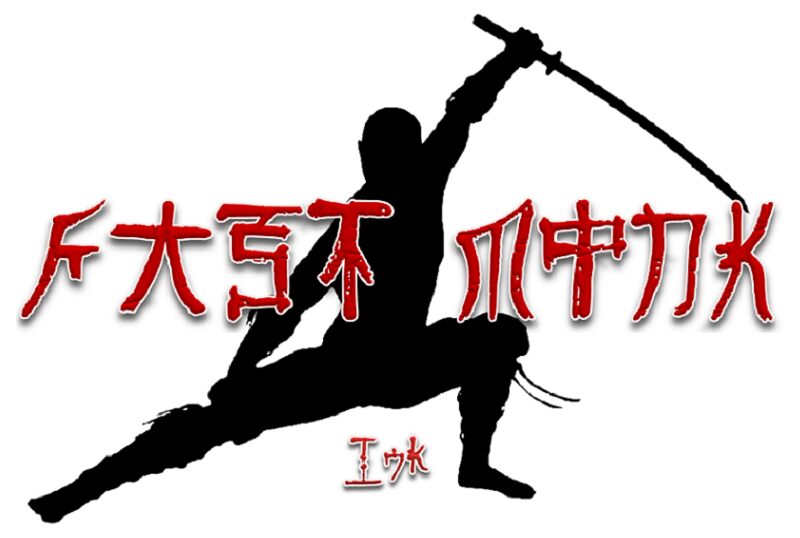
Fast Monk *Ink* was inspired by Chinese characters.
Fast Monk _ Ink
Fast Monk _ Ink Regular
This 'Ink' version of Fast Monk, was inspired by Chinese characters